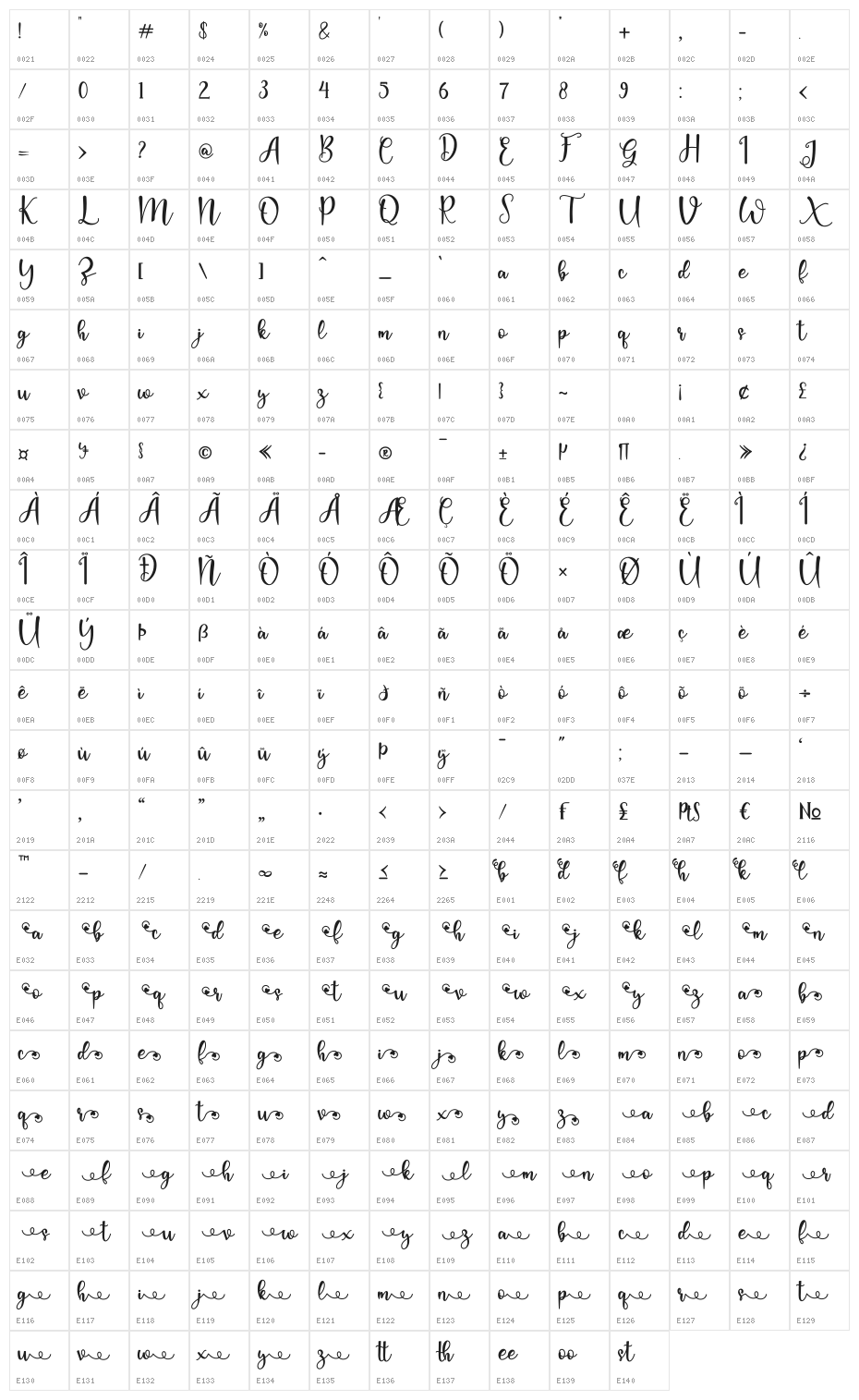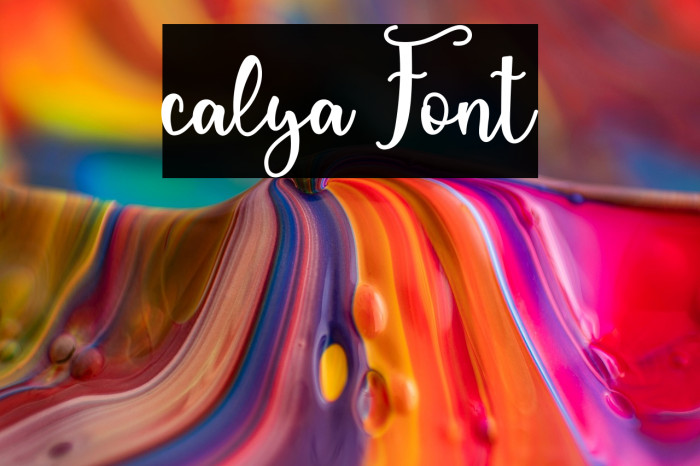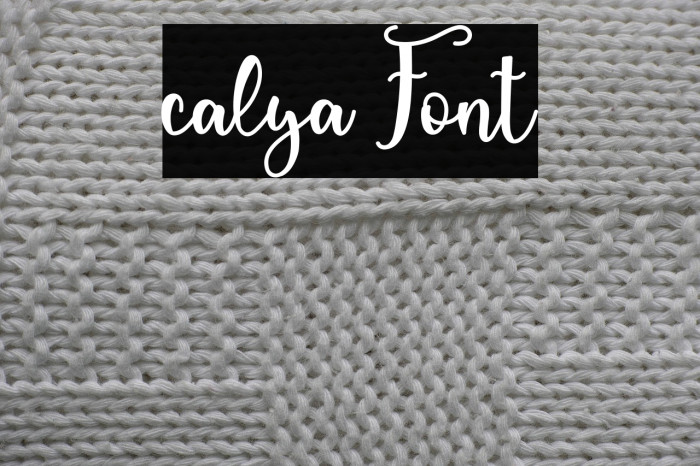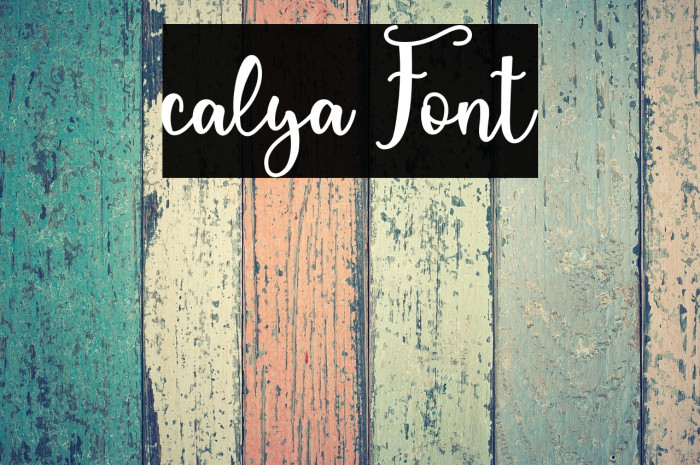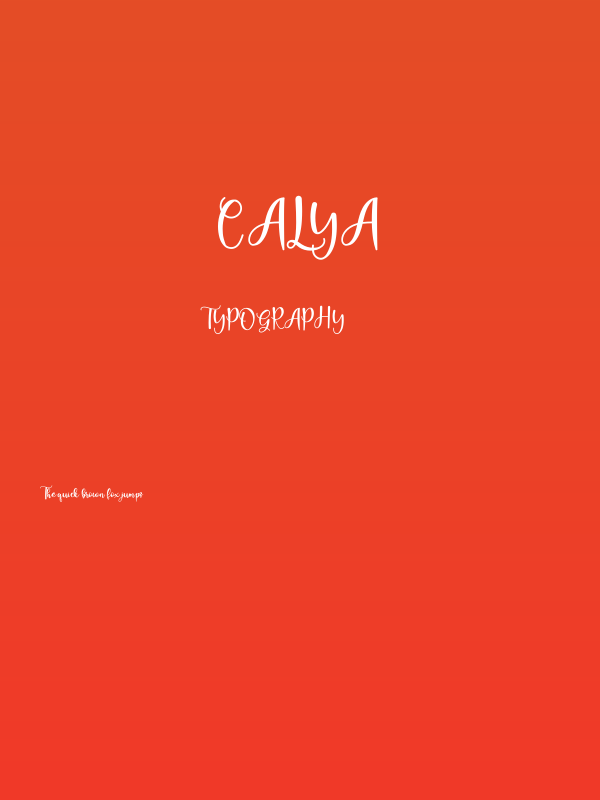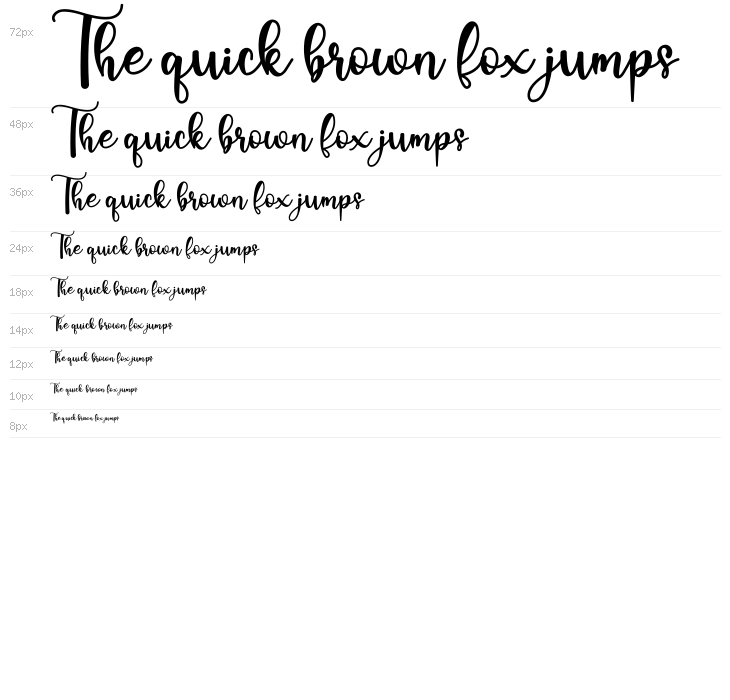
calya Font
calya Description
This font features a playful and elegant script style with a handwritten appearance. The uppercase letters are characterized by their flowing, cursive lines and occasional flourishes, giving them a whimsical and artistic feel. The lowercase letters maintain a consistent style, with smooth curves and a slightly bouncy baseline, enhancing the font's casual yet sophisticated look. The numerals are clear and legible, matching the overall aesthetic with their rounded forms. Special characters are creatively integrated, maintaining the font's cohesive design. This font is ideal for projects that require a personal touch, such as invitations, greeting cards, or branding materials.
Proposed ProjectsIdeal for invitations, greeting cards, branding, and creative projects.